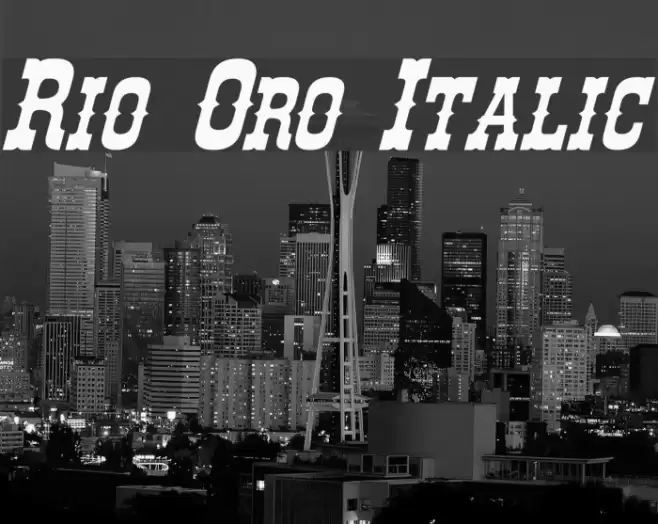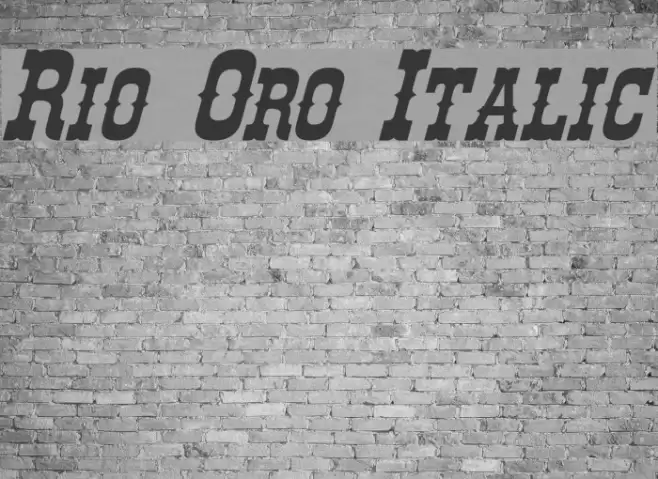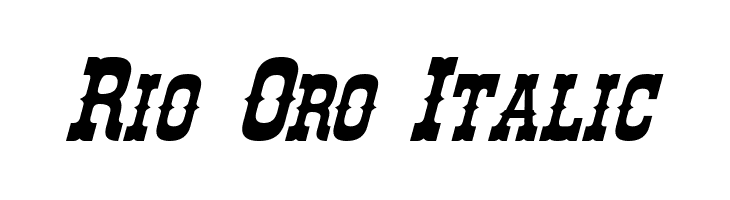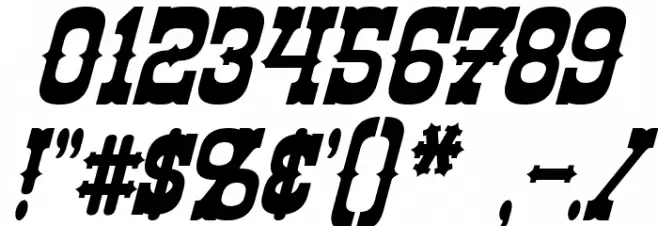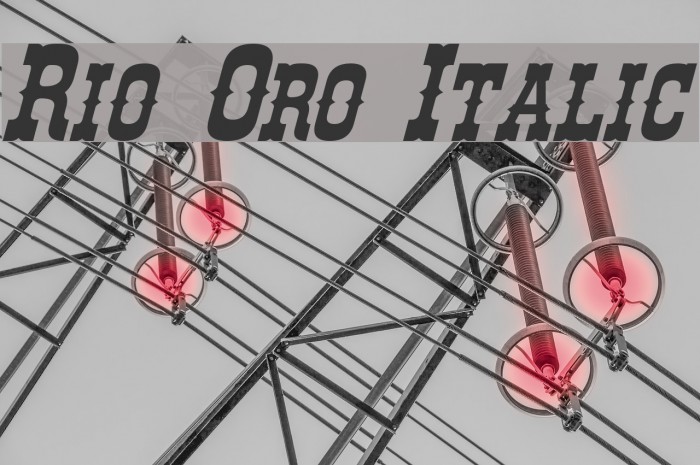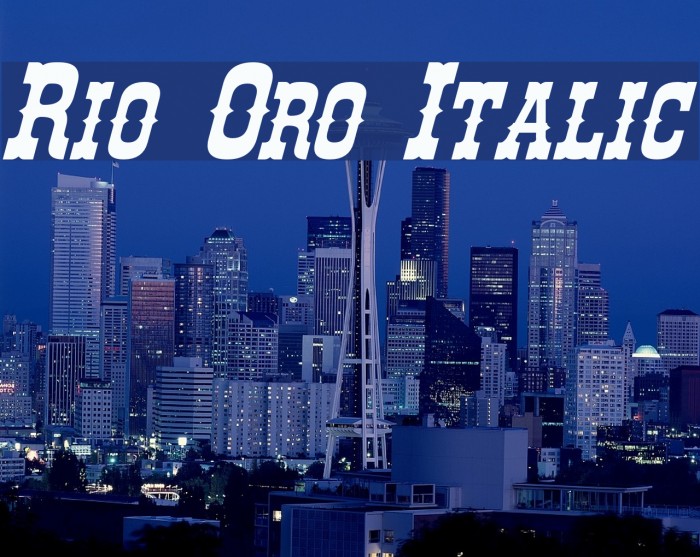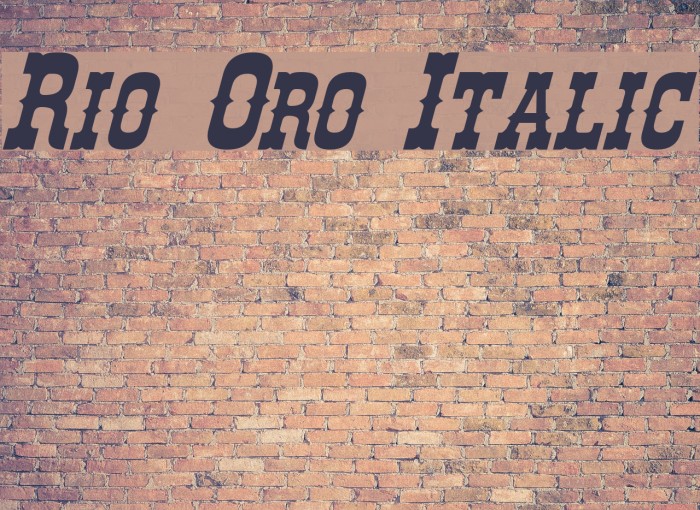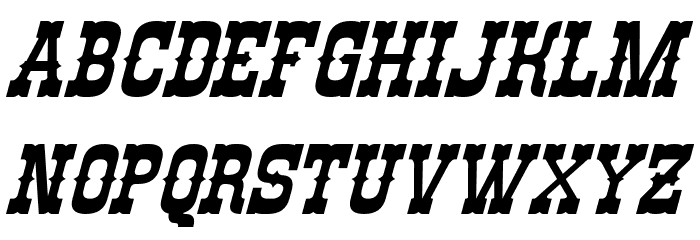
Rio Oro Italic Font
Rio Oro Italic Description
This font features a bold and dynamic style with a distinct italic slant, giving it a sense of motion and energy. The characters are robust with thick strokes, creating a strong visual impact. The uppercase and lowercase letters maintain a consistent style, with sharp angles and a slightly condensed form. The numbers and special characters follow the same bold and italicized design, ensuring uniformity across all glyphs. This font's unique style is reminiscent of vintage sports or racing themes, making it ideal for projects that require a bold and energetic typeface.
A bold, italicized font with a dynamic and energetic style from Uncategorized fonts.
- Proposed Projects: Ideal for sports branding, racing themes, dynamic posters, and vintage-inspired designs.
- Overall Style: Vintage, Dynamic